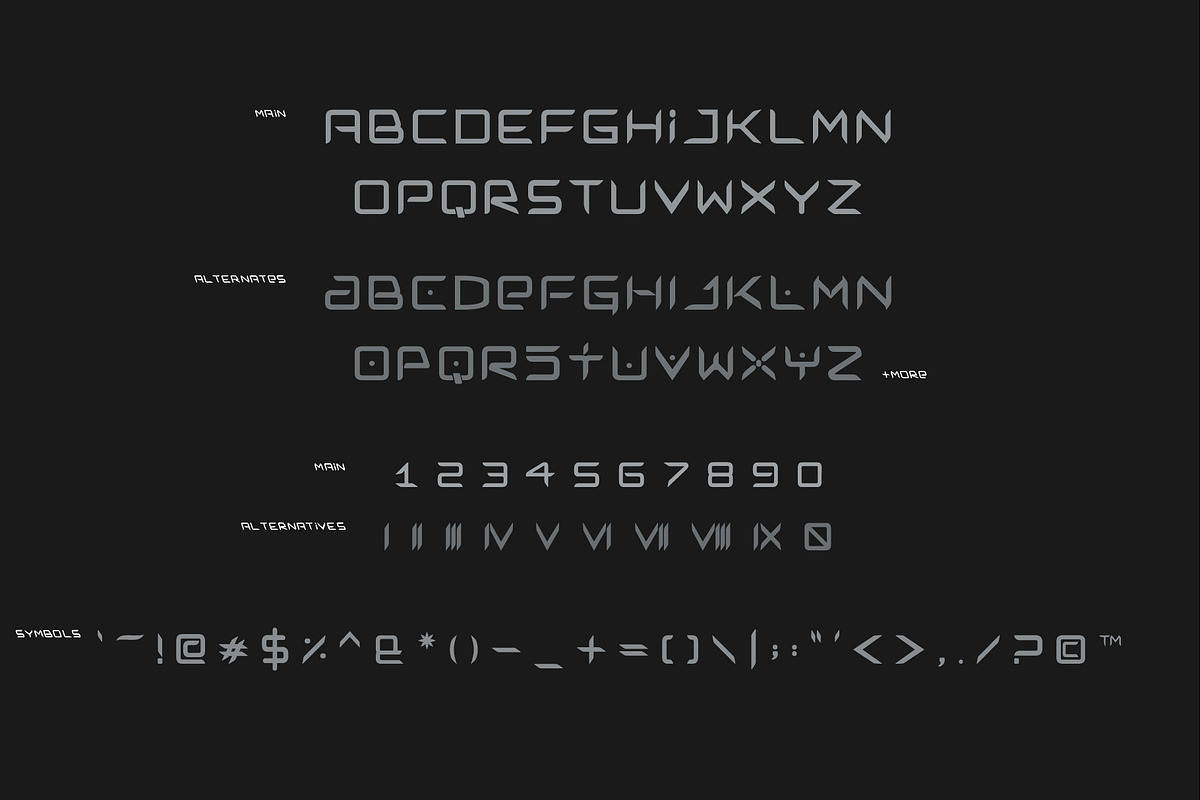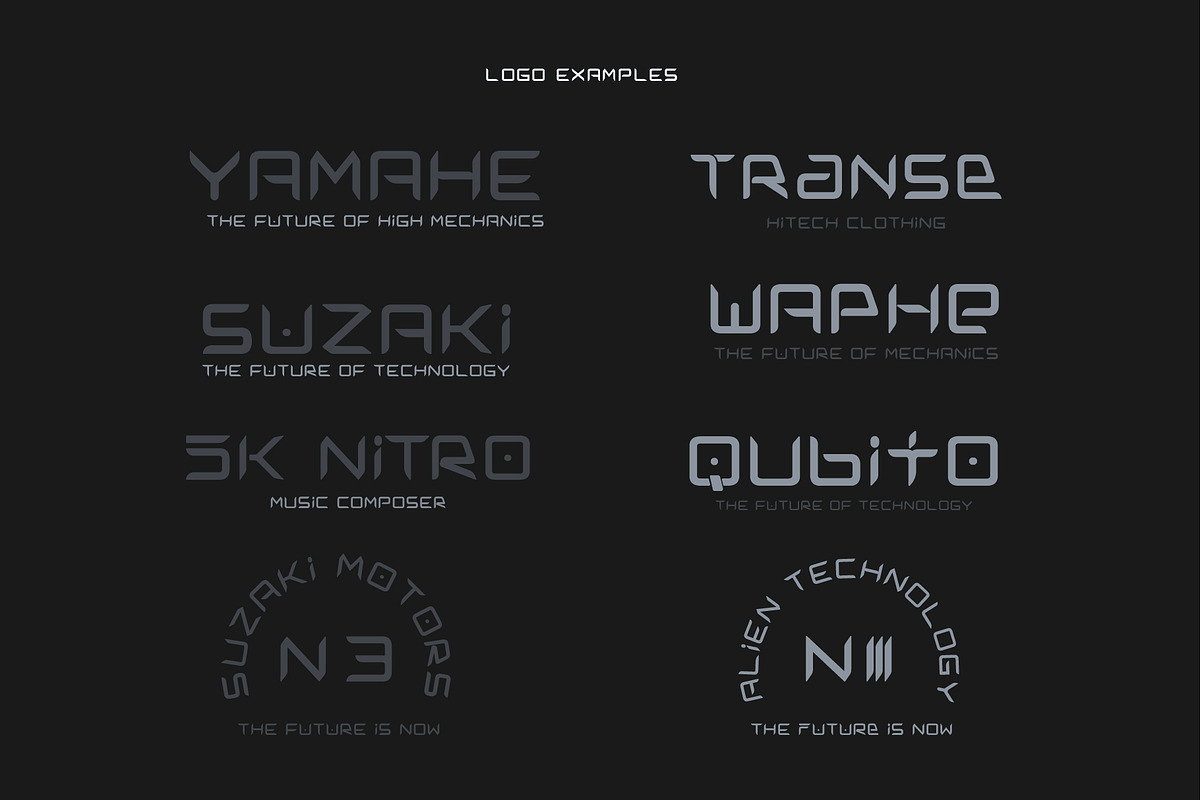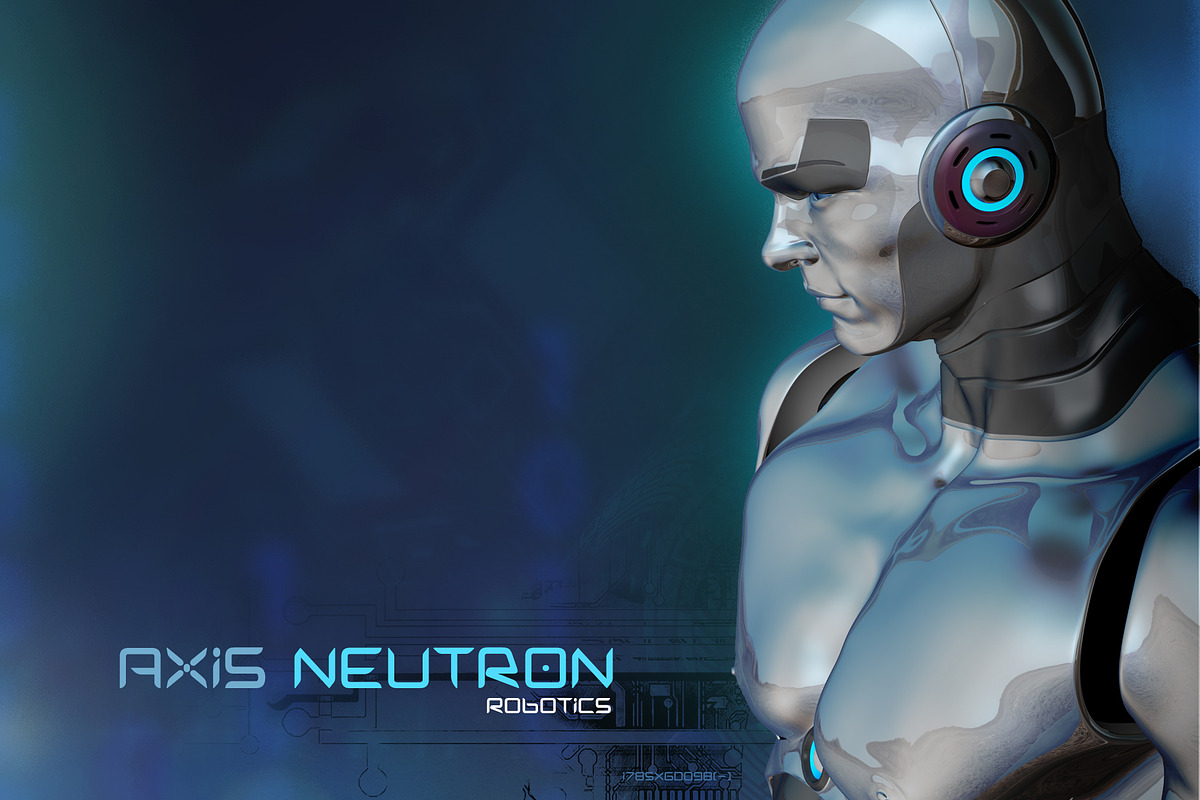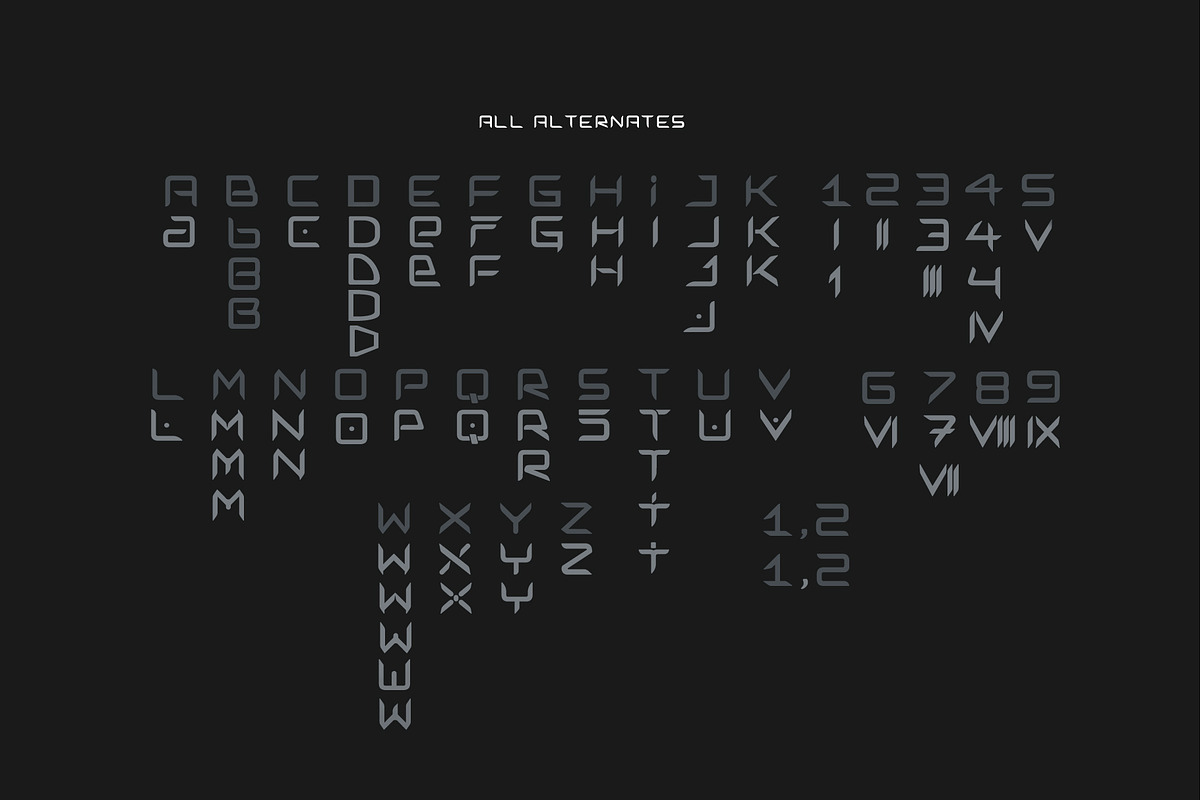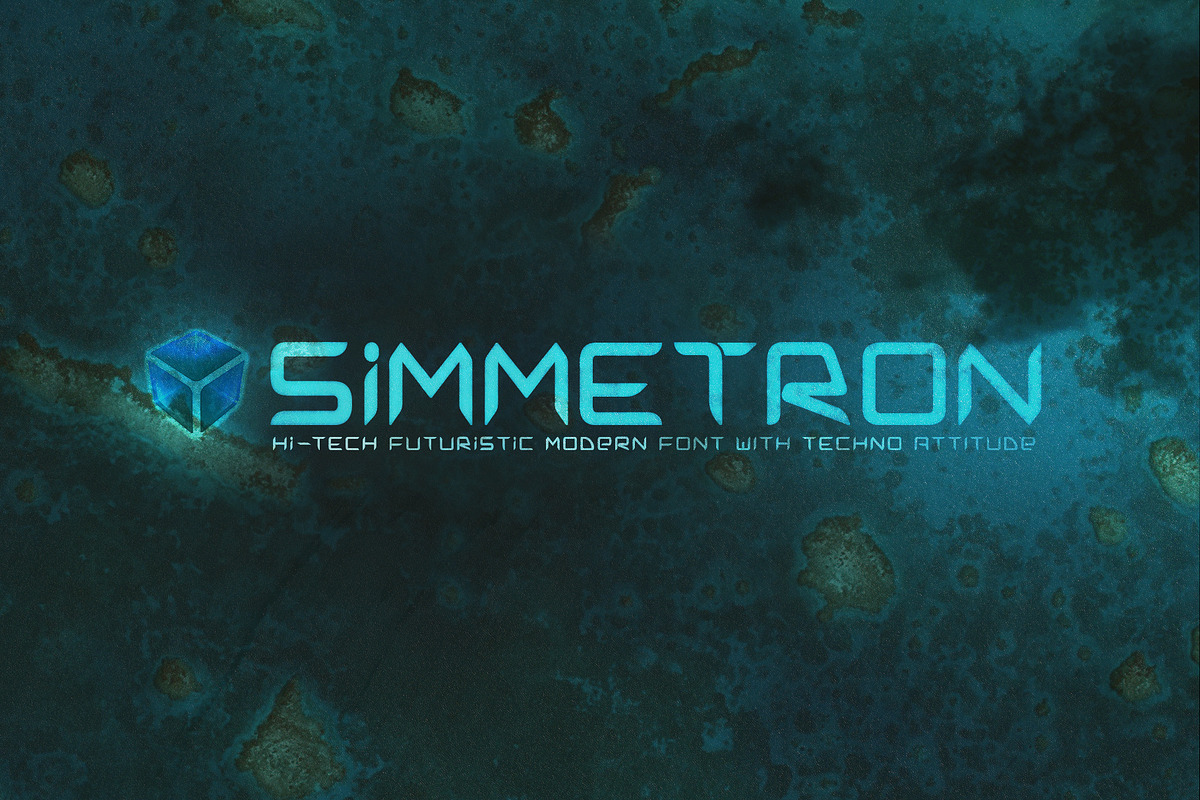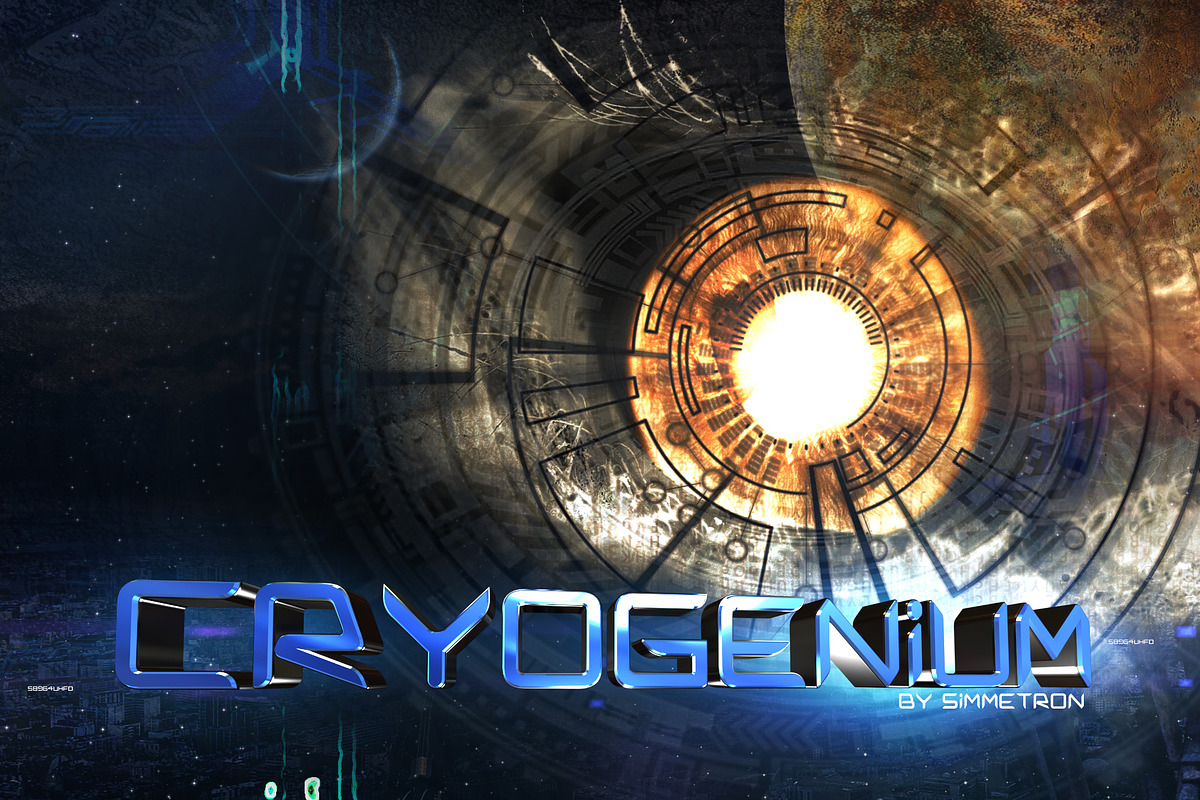
Simmetron Hi-Tech Futuristic Font
A hi-tech and futuristic modern font for your techno needs!
Uppercase English letters
Special Characters and symbols
|| Look at the images to see all alternates and characters. Real examples and logos.
Create unique customized logos with the alternates and get ready to travel to future!